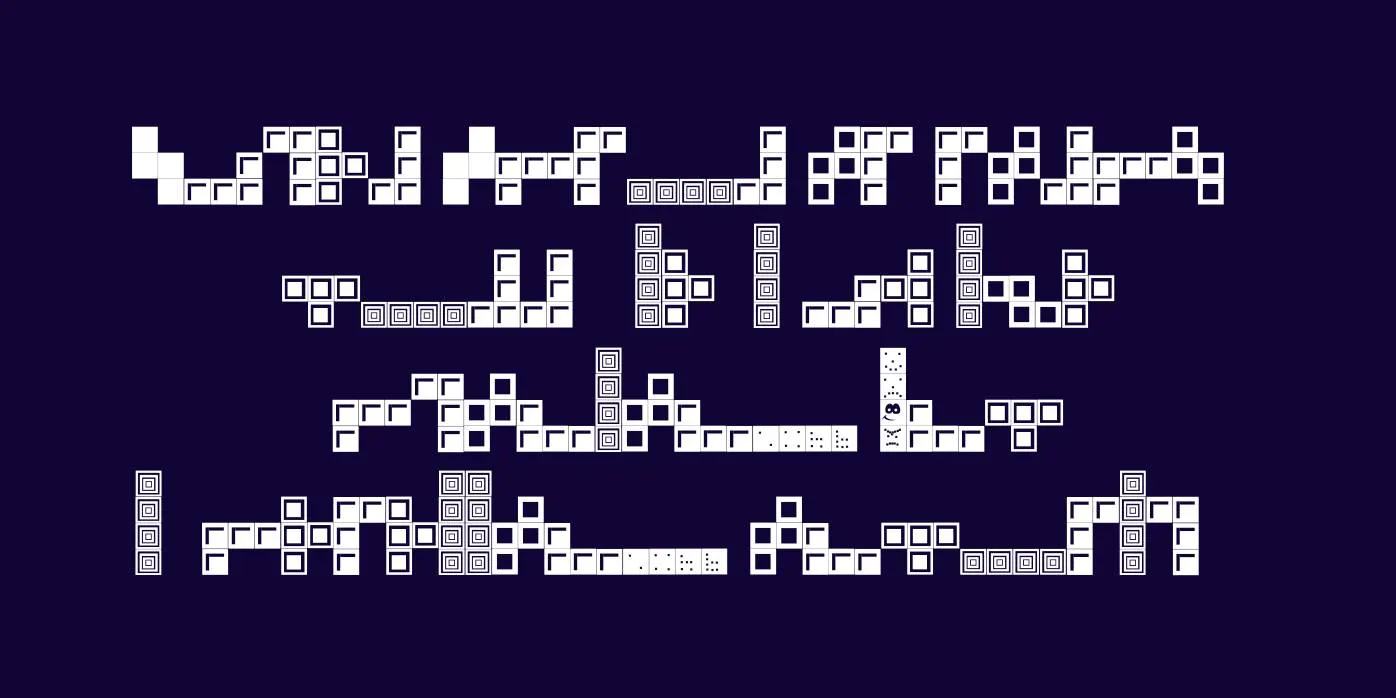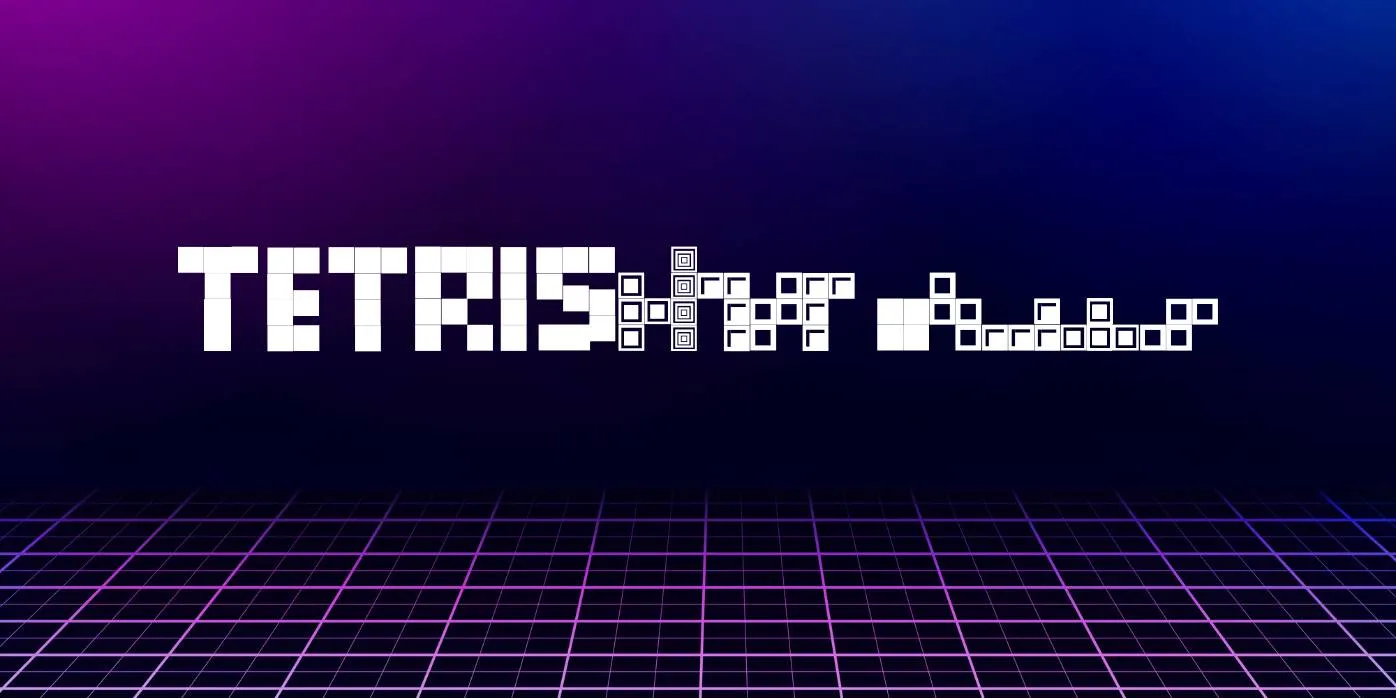
Tetris Blocks Font
Tetris Blocks Font is a very unique and different design by David Pustansky. All rights are reserved by David Pustansky. It falls under Table version 1.0. Unicode supported by this font is BMP only.
The pattern nature of this font is regular and its posture is upright. The stroke weight is Bold and its pitch is not monospaced. An online generator tool is also available for this font to check or change simple text into a stylish look. It can also be paired with other fonts like super mega game font to give your projects a more attractive and amazing look.
Usage  It is a very unique and amazing font and can be used for making so many projects. This font has character, Spacing Modifier Letters, general punctuations, Letterlike symbols, mathematical operations, small letters, and capital letters. You can be used for making different kinds of games including blocks. You can make titles of video games and other text or blocks.
This font can be used for making kids-related items in a very attractive way. It can also be used for making different types of logos for different projects. You can also make book covers using this font. It is a good choice for print and digital media.
It can be used for making many video game designs, their titles, and much more. It is a very unique and interesting font for use.